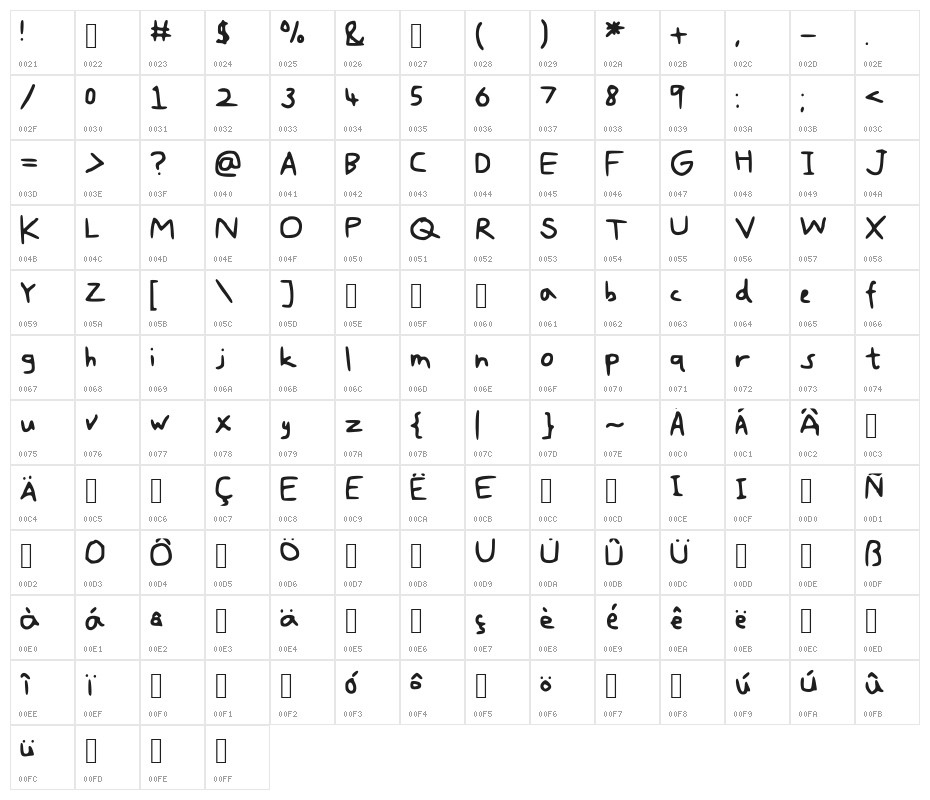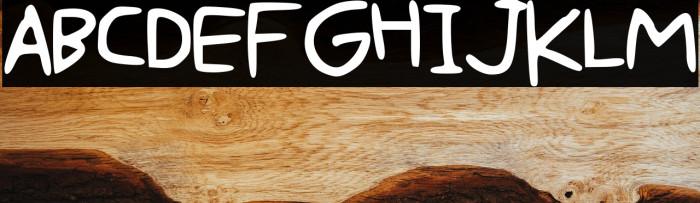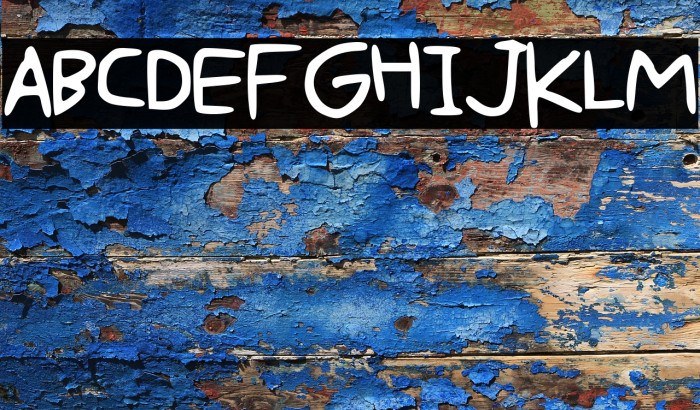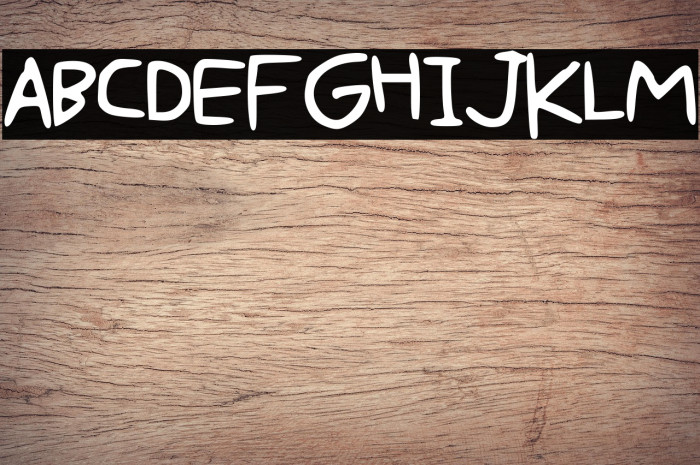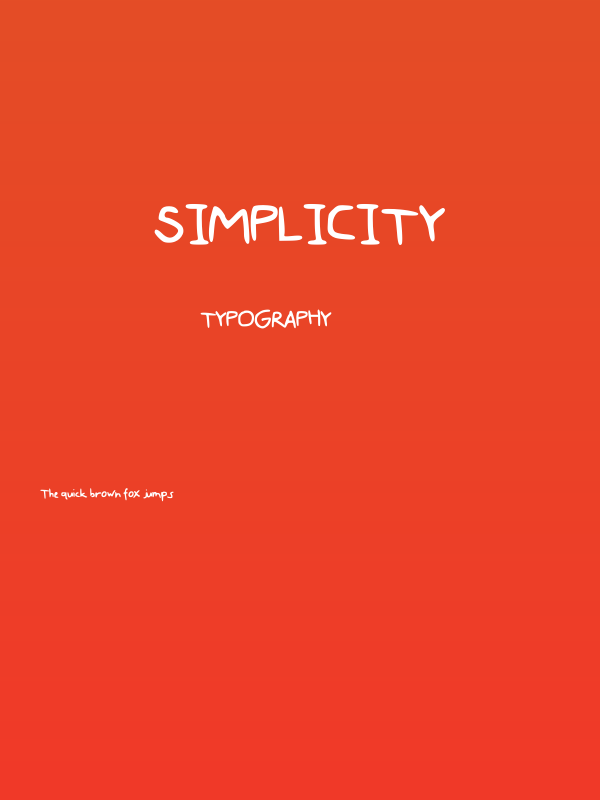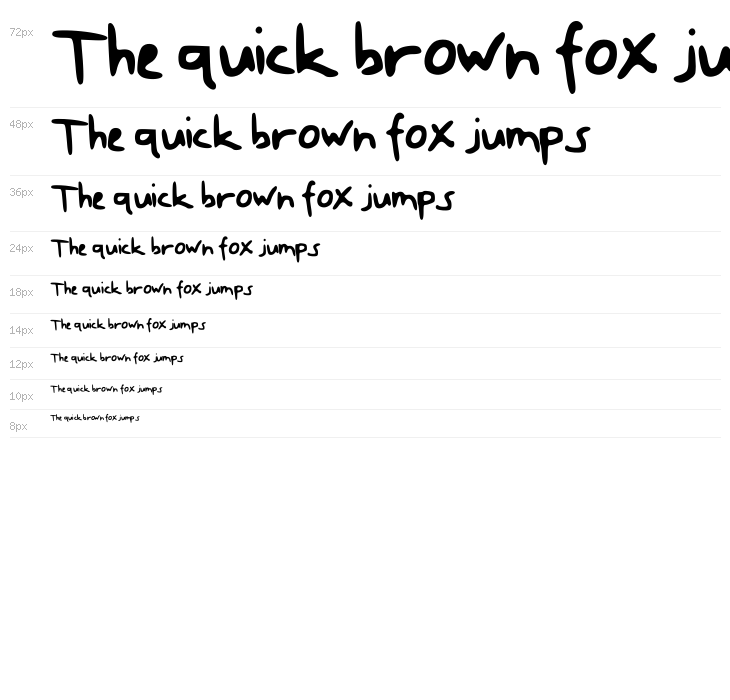
Simplicity Font
Simplicity Description
This font features a playful, handwritten style with a casual and informal appearance. The letters are slightly irregular, giving it a personal and approachable feel. The strokes are consistent in thickness, contributing to a uniform look across all characters. The uppercase and lowercase letters maintain a coherent style, with rounded edges and a smooth flow. The numbers and special characters are designed to match the overall aesthetic, ensuring a cohesive look. This font is ideal for projects that require a friendly and relaxed vibe.
Overall StyleCasual
Use CaseHeadlines, Informal text, Creative projects
Proposed ProjectsIdeal for greeting cards, children's books, casual branding, and social media graphics.